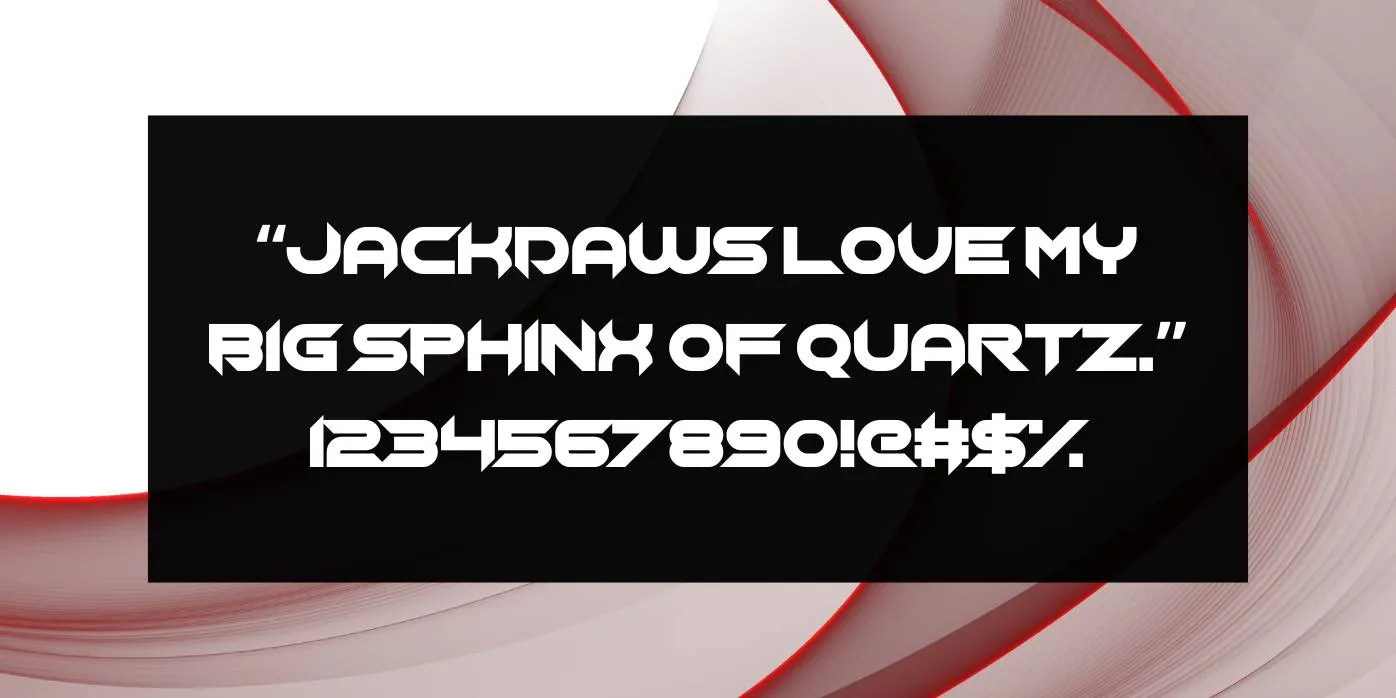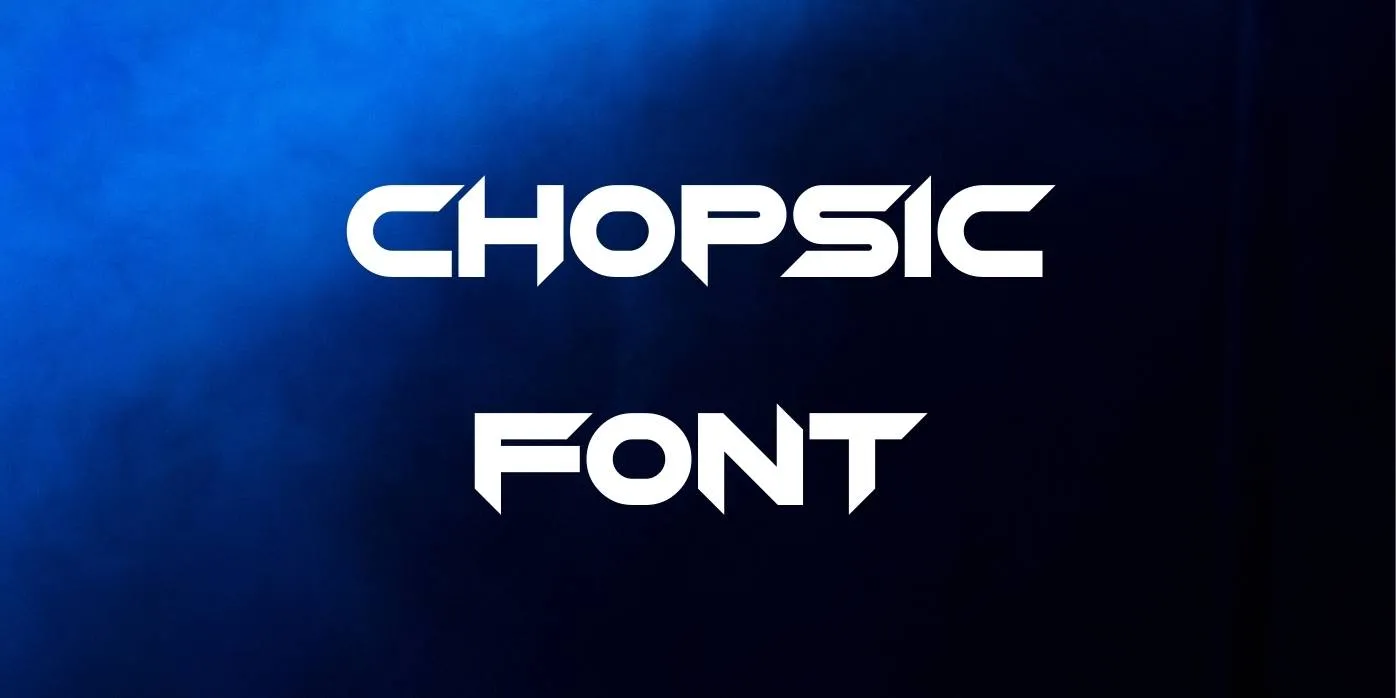
Chopsic Font
Chequered Ink designed this texture. Chopsic Font is a display font that has amazing characters. This amazing font style has 51 glyphs and 19 characters include uppercase, numbers and some special characters. The generator tool will help you create a unique and customized this font for your website or blog.